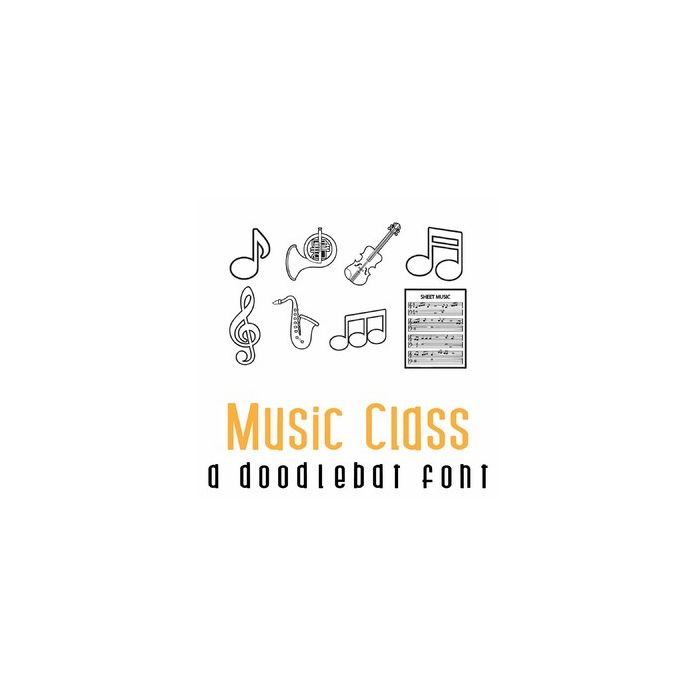
This fun doodlebat font features 35 music themed imagery from notes to instruments. Perfect for cards, crafts, gifts, decor, scrap book pages, planner stickers and more! Glyphs are A-Z and 0-8.